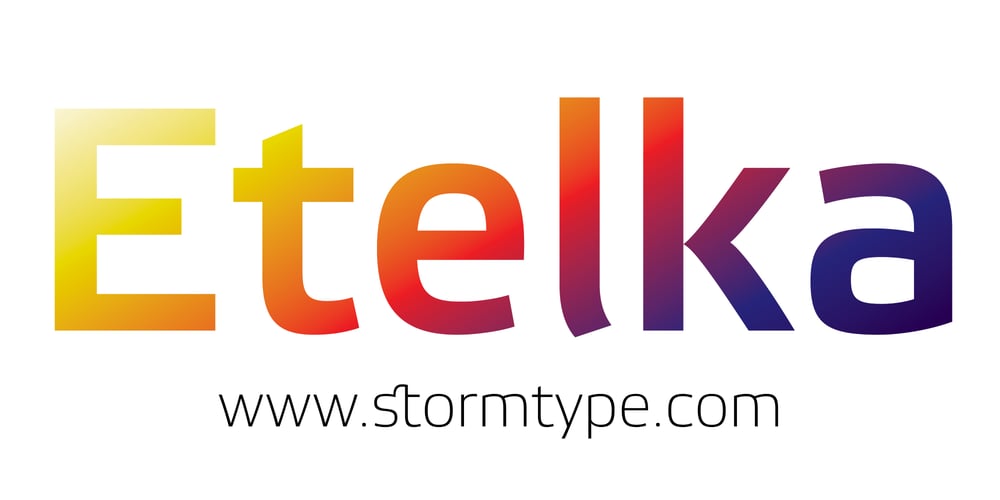
Etelka Font Family was designed by František Štorm and published by Storm Type Foundry. Etelka contains 42 styles and family package options. Etelka was designed for purposes of corporate identities, branding, product package design and outside lettering. It works anywhere an extremely legible typeface is needed. Package and label design often requires a wide choice of weights and widths: light and narrowed fonts to fit huge amount of mandatory informations onto a small box, or to squeeze text lines around a bottle, fat and wide styles to emphasize information on a poster or vehicle. The regular styles will serve well for business card, small texts and for your website.Etelka’s design idea is wide, open rounded square. Some details are extremely minimized: lower-case “a, n” or “u” lack their typical spur. The typeface has a distinctive industrial expression with all diagonals slightly softened, and her overall strict mono-linear principle is exceptionally broken only for fine optical adjustments in joints.Cyrillic and Greek scripts are present for international business, as well as rich latin diacritics. Etelka is actually very well suited for all kinds of visual communication, especially orientation systems in modern architecture.The first drawing of the font, which was later named “Etelka”, was submitted in 2004 for the Czech Television identity competition and was rejected by the jury. We later concluded that the design was worth extending to the current superfamily of 42 fonts. It is a reliable typeface for corporate identities and websites.